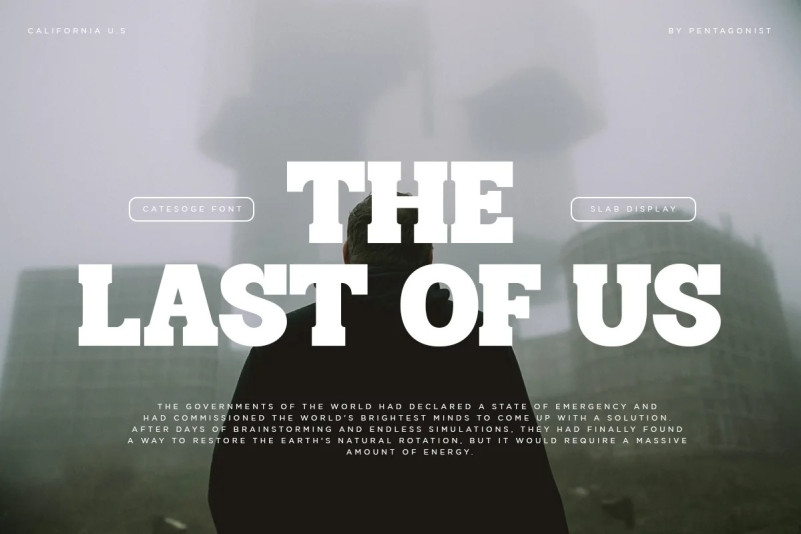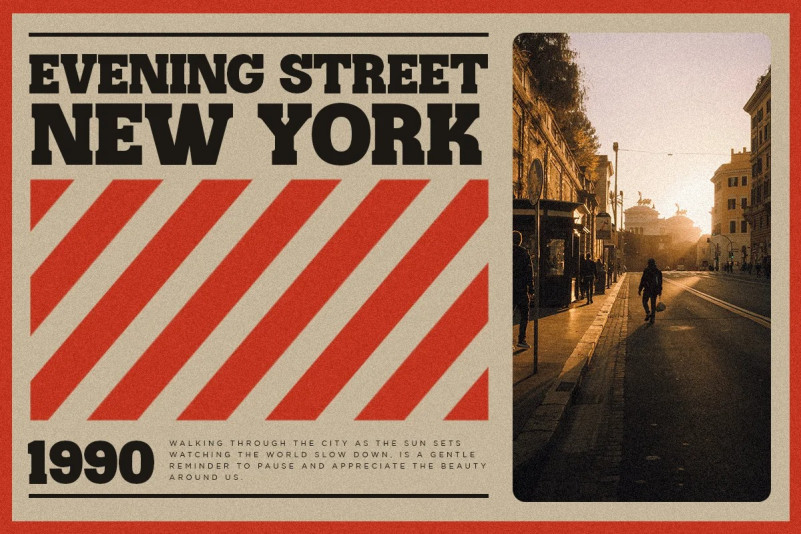
Catesoge Font
Catesoge Font Is A Bold Slab Serif Typeface Inspired By Retro and Vintage Style. Very suitable as to make adorable invitation for wedding, birthday, special day. A collection of letters and numbers suitable your projects also great for Logotype, Branding Design, Logo Design, Digital Lettering Arts, T-Shirt/Apparel, Poster, Magazine, Signs, Advertising Design, and also perfect for your other projects branding.